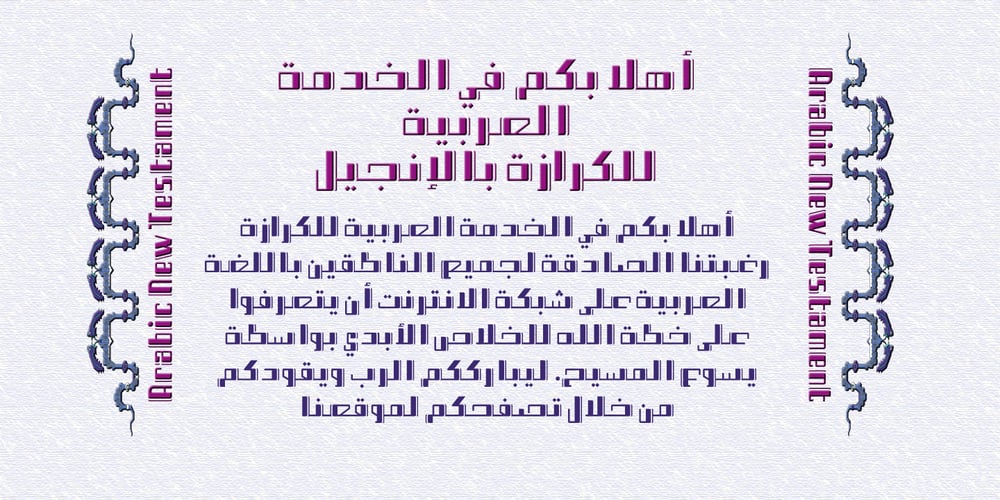
Divan Arabic
Divan Arabic font
Divan Arabic Font Family was designed by Naghi Naghashian and published by Naghi Naghachian. Divan Arabic contains 1 styles and family package options. Divan Arabic is a new creation of Naghi Naghashian. Divan Arabic is a modern Sans Serif Headline font. This innovation is a contribution to modernisation of Arabic typography, gives the font design of Arabic letters real typographic arrangement und provides more typographic flexibility. Divan Arabic supports Arabic, Persian and Urdu. The highest degree of calligraphic grace and the clarity of geometric typography. This typeface offers a fine balance between calligraphic tradition and the Sans Serif aesthetic common in Latin typography. Divan Arabic design fulfills the following needs: A. Explicitly crafted for use in electronic media fulfills the demands of electronic communication. B. Suitability for multiple applications. Gives the widest potential acceptability. C. An attractive typographic image. Divan Arabic was developed for multiple languages and writing conventions. Divan Arabic supports Arabic, Persian and Urdu. D. The highest degree of calligraphic grace and the clarity of geometric typography. This typeface offers a fine balance between calligraphic tradition and the Sans Serif common in Latin typography.